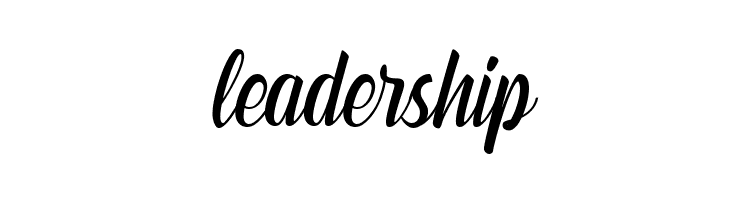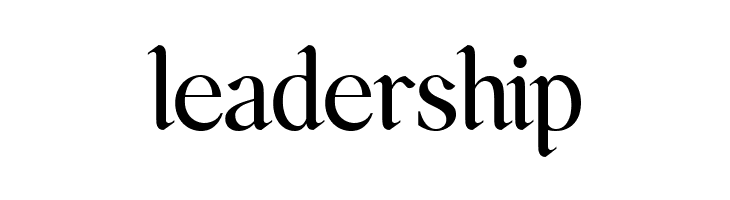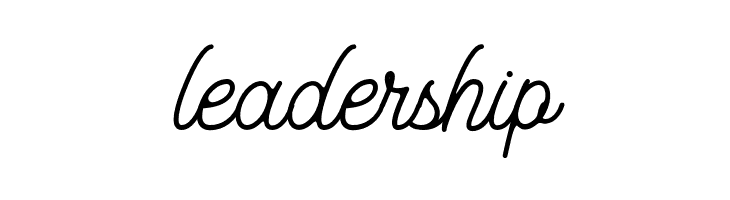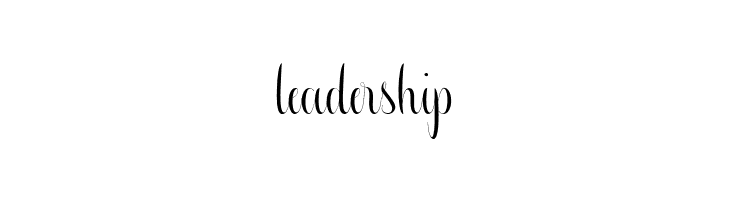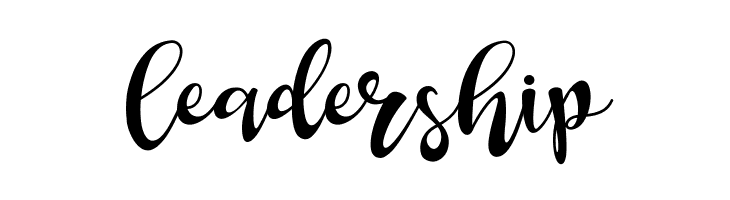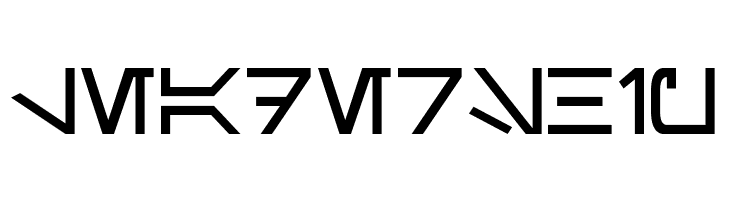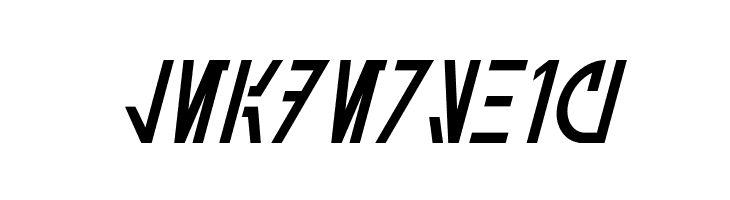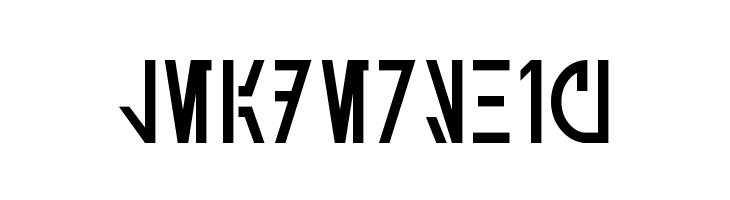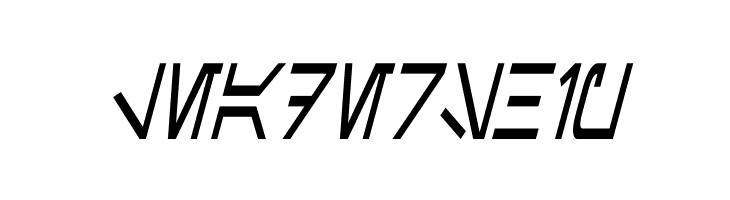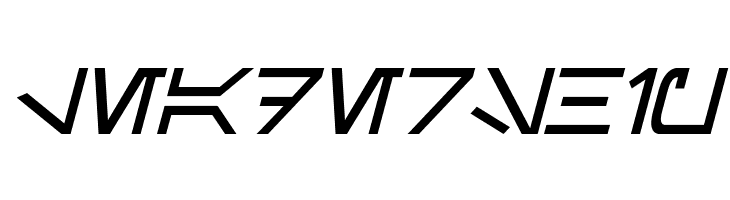
A modern, geometric sans-serif font with clean lines and balanced spacing.
A lively and expressive handwritten font with fluid, dynamic strokes.
A dynamic and elegant script font with fluid, cursive letterforms.
A dynamic and elegant script font with flowing, cursive letterforms.
An elegant script font with intricate swashes and a handwritten feel.
A playful, casual handwritten font with fluid strokes and a consistent slant.
A modern, cursive font with elegant connections and medium contrast.
A stylish and elegant script font with flowing, cursive design.
An elegant script font with flowing, cursive letters and intricate swashes.
An elegant, cursive font with flowing, ornate characters.
A bold, high-contrast decorative font with dramatic serifs.
A dynamic and elegant script font with flowing, cursive letterforms.
A bold, flowing script font with elegant, cursive letterforms and dynamic flourishes.
A graceful and elegant script font with flowing cursive lines.
A dynamic and elegant script font with flowing, connected letters.
A dynamic and elegant script font with smooth, flowing curves.
A modern, elegant font with sharp and smooth elements, ideal for versatile applications.
A modern, decorative font with a striped, textured design.
A playful handwritten font with fluid, dynamic strokes and a casual style.
A bold, geometric outline font with a modern, futuristic style.
A bold, geometric, double-line font with a modern and futuristic look.
A bold, modern font with geometric shapes and consistent width.
A bold, geometric font with rounded edges and a modern style.
A bold, geometric font with a double-line outline for a modern look.
A bold, geometric font with a double-line outline and modern style.
A classic serif font with elegant lines and high contrast, perfect for sophisticated designs.
A futuristic, angular font resembling alien script from a sci-fi universe.
A bold, italicized, futuristic script with angular, geometric characters.
A bold, geometric font with a futuristic and mysterious aesthetic.
A bold, geometric font with a futuristic and abstract style.
A bold, italicized font with angular, geometric shapes, ideal for sci-fi themed designs.
A futuristic, angular, and italicized font with a sci-fi aesthetic.
A geometric, angular font with a futuristic, sci-fi aesthetic.
A bold, condensed, and angular font with a futuristic sci-fi aesthetic.
A bold, condensed font with a futuristic, angular design.